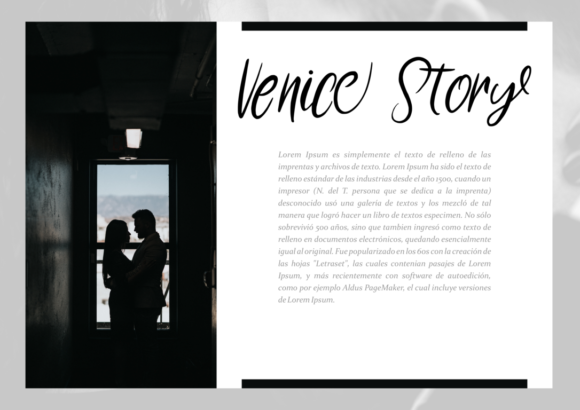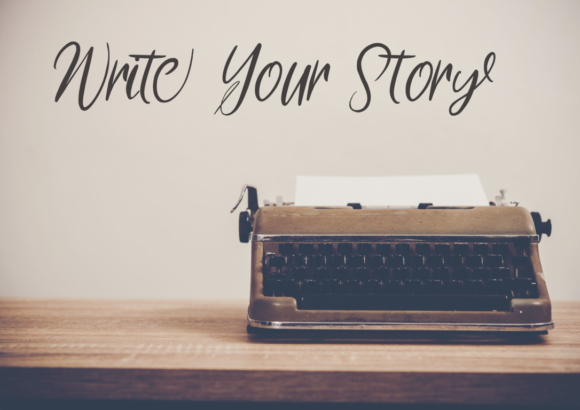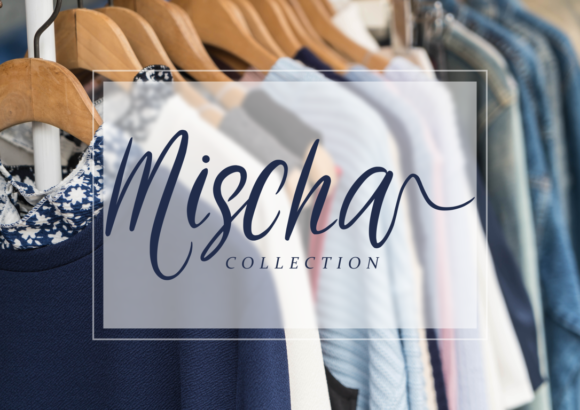
Introduction to Mothy Font
As designers, we’ve all been there – staring at a blank canvas, waiting for inspiration to strike. For me, it was a late-night brainstorming session with a cup of coffee and a blank document open on my computer. The challenge was to create a logo for a new client, something that would stand out and capture their brand’s essence. That’s when I stumbled upon the Mothy Font – a lovely and timeless handwritten font that breathed new life into my design.
What I loved about Mothy Font is its versatility and high quality. This beautiful font is perfect for creating eye-catching logos, branding, and quotes, making it a valuable resource for designers. With its PUA encoding, accessing all the beautiful glyphs and swashes is a breeze, giving you the freedom to unleash your creativity. Whether you’re working on a creative project or simply need a design resource, Mothy Font is definitely worth exploring.
Key Features of Mothy Font
- High-quality font design for creative projects, ideal for use in graphic design, digital art, and typography.
- Includes transparent background, allowing for seamless integration into various design elements.
- Features a unique, hand-drawn style that adds a touch of personality to any design project.
Honest Review: Mothy Font
As a designer, I’m always on the lookout for high-quality design resources to elevate my creative projects. Recently, I stumbled upon the Mothy Font, and I’m excited to share my thoughts on this free download.
What works well with the Mothy Font is its unique and playful style, perfect for adding a touch of whimsy to any design. The font is highly customizable, with a wide range of weights and styles to choose from. This makes it an excellent addition to any design project, from branding to editorial work. ✨
- Highly customizable with various weights and styles
- Transparent background, allowing for seamless integration into any design
However, there are a few limitations to consider. The font may not be suitable for professional or formal designs, as it has a more casual and playful vibe. Additionally, the font may not be compatible with all operating systems or software. ⚠️
Overall, I’m impressed with the Mothy Font. While it may have some limitations, its unique style and high quality make it a valuable addition to any design resource library. I’d definitely recommend it for creative projects that require a touch of personality and whimsy.